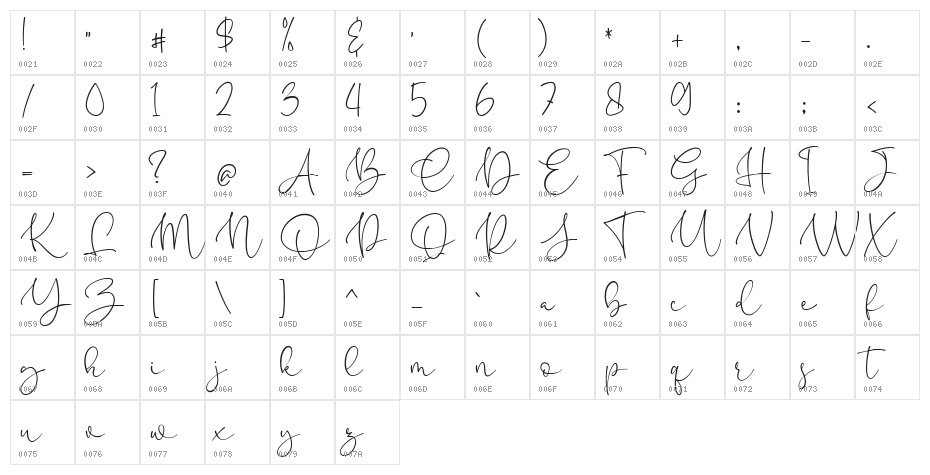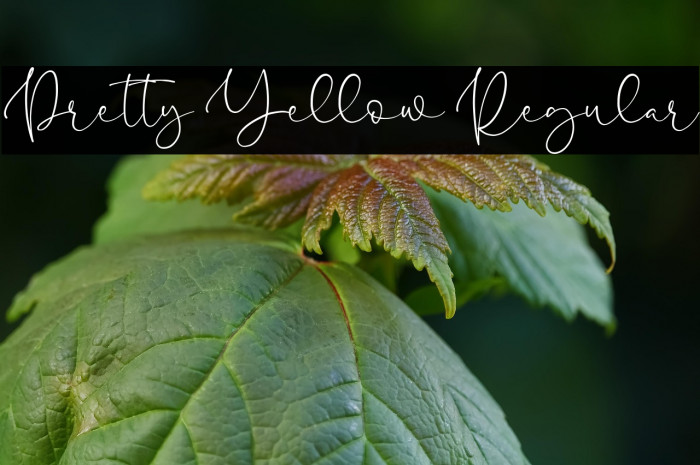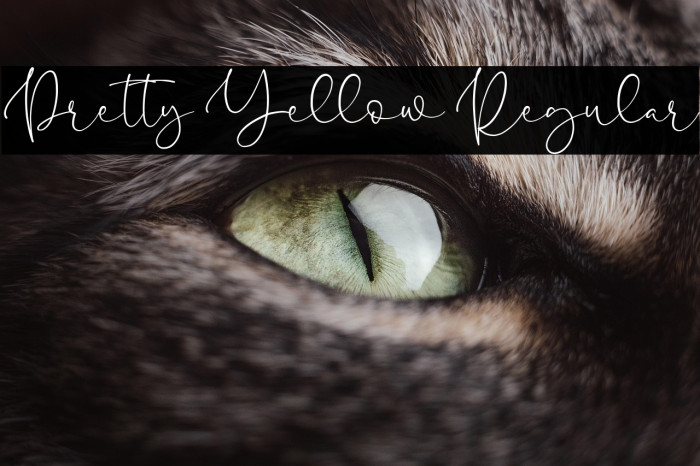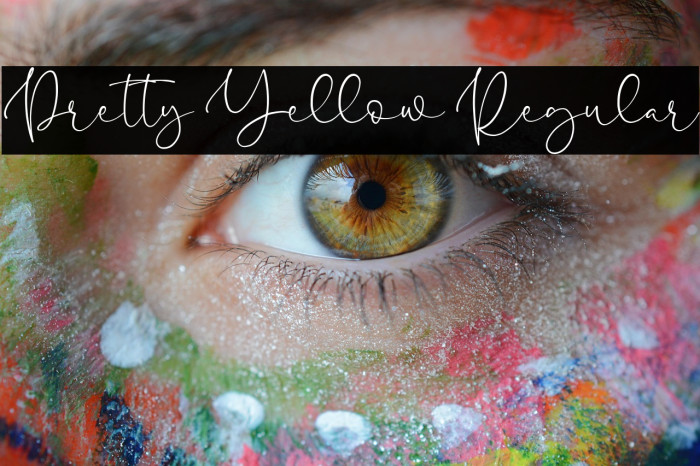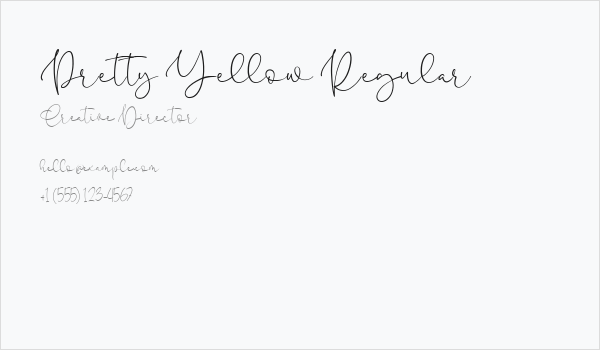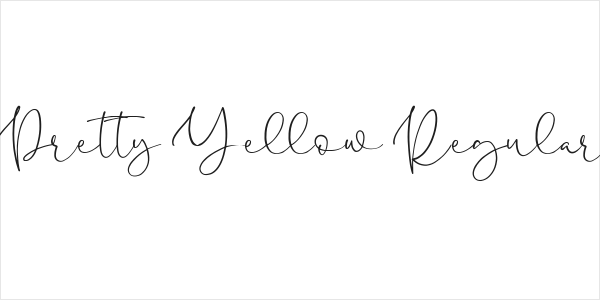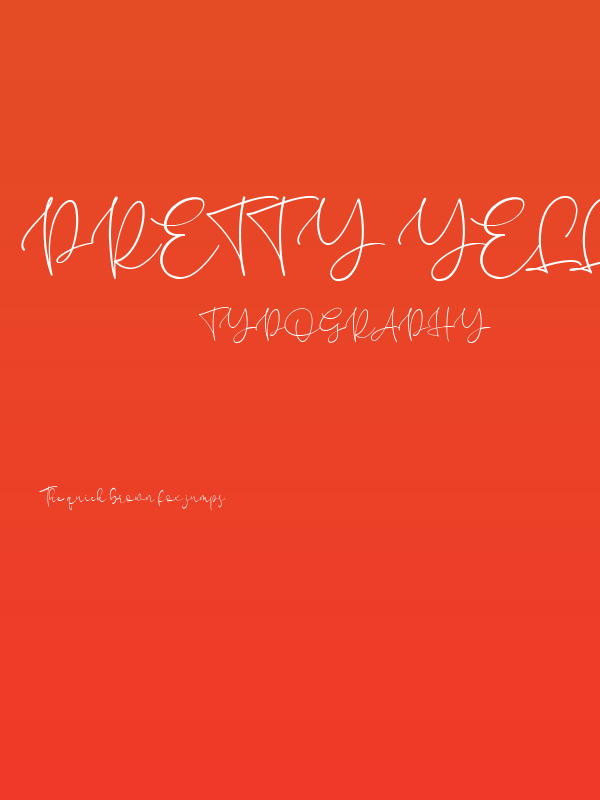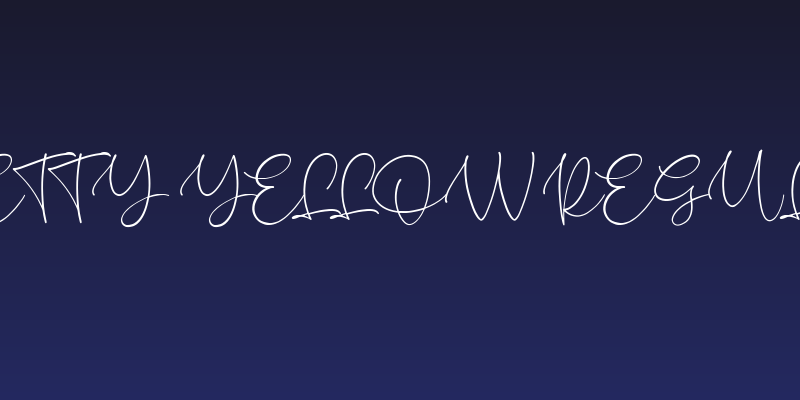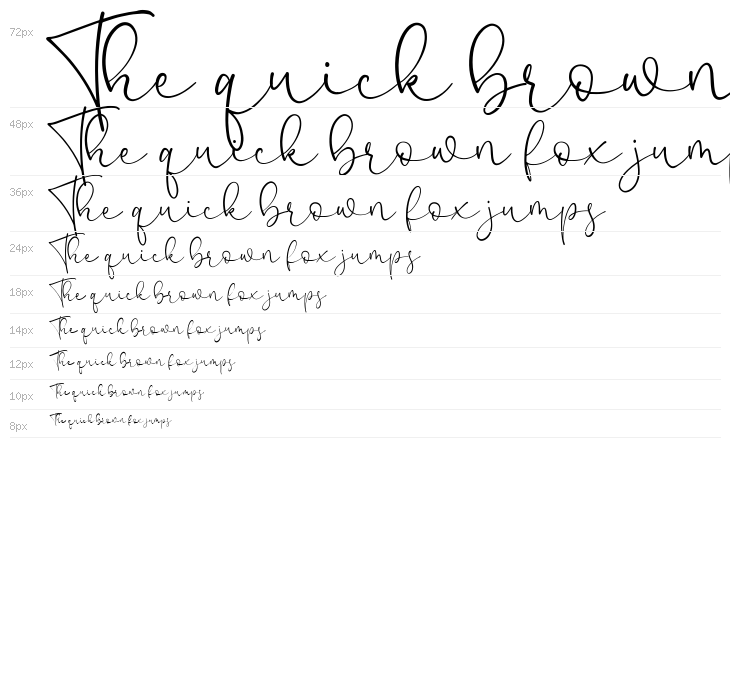
Pretty Yellow Regular Font
Pretty Yellow Regular Description
This font exhibits a playful and elegant handwritten style, characterized by its flowing, cursive letters. The uppercase letters are slightly more ornate, with loops and swirls that add a touch of sophistication. The lowercase letters maintain a consistent flow, enhancing readability while retaining a whimsical charm. The numerals are clear and legible, with a slight slant that complements the overall script style. Special characters are thoughtfully designed, maintaining the font's cohesive aesthetic. This font's delicate lines and graceful curves make it suitable for projects that require a personal or artistic touch.
| Use Case | Logos, Invitations, Artistic projects |
| Proposed Projects | Ideal for wedding invitations, greeting cards, personal branding, and artistic projects. |